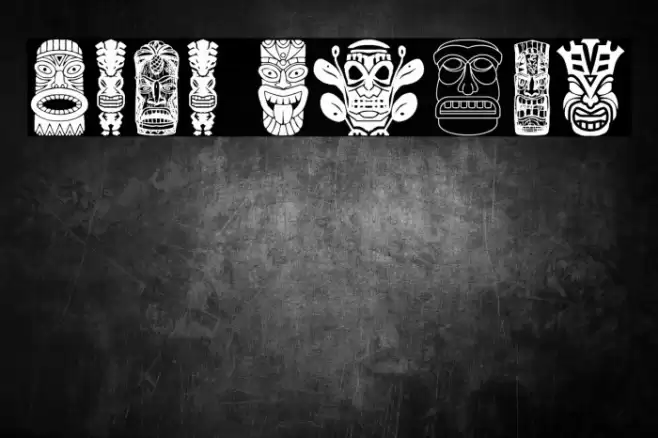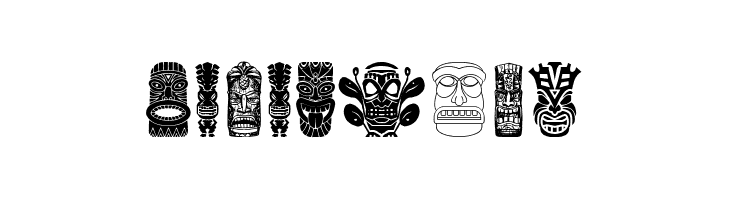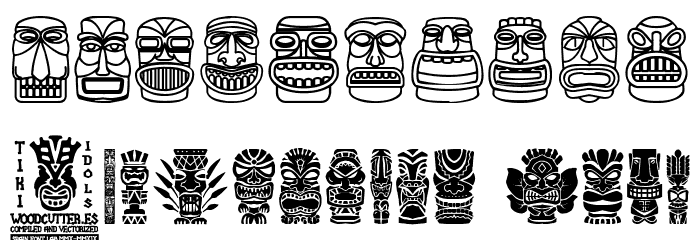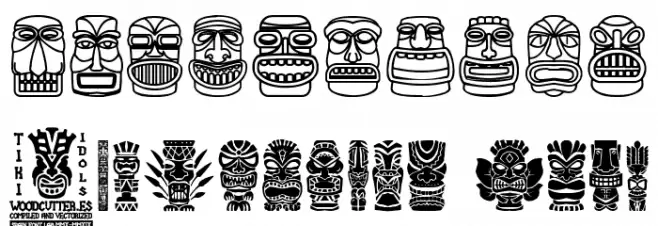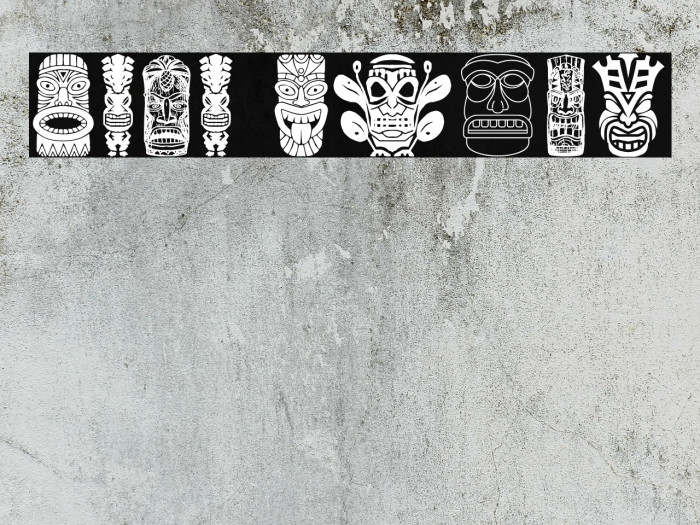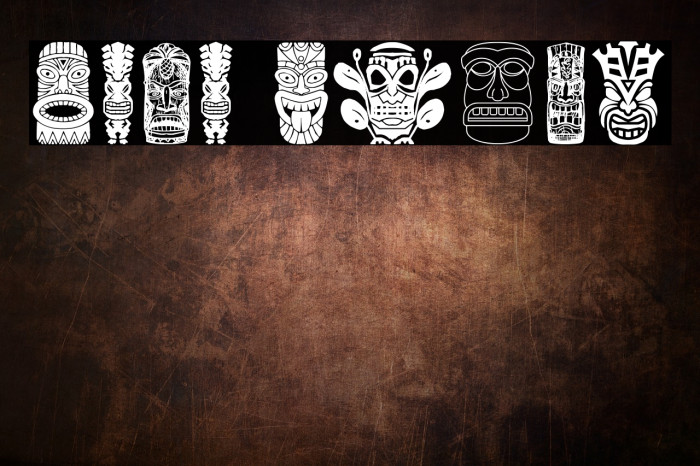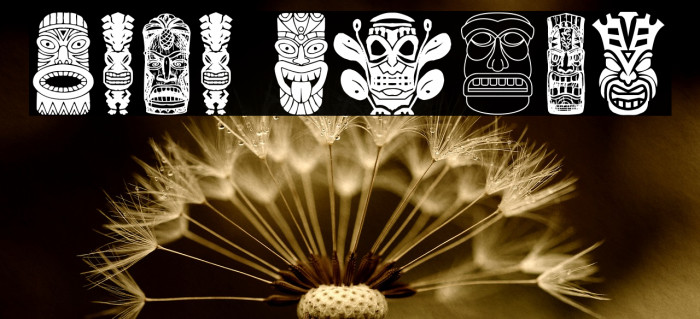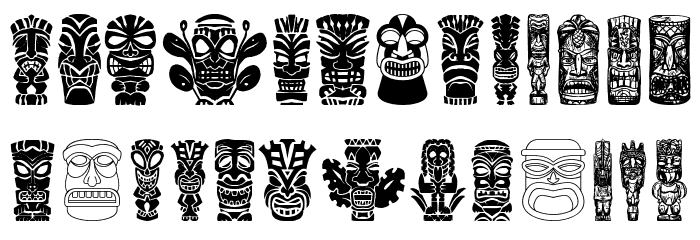
Tiki Idols Font
Tiki Idols Description
A highly decorative display font featuring a variety of stylized tiki idol illustrations as glyphs, each character represented by a unique, bold, and intricate tiki face or figure. The style is playful, tribal, and visually striking, with heavy black fills and detailed linework.
A decorative display font with tiki idol illustrations as characters from Dingbats fonts.
- Proposed Projects: Tiki bar branding, party invitations, posters, themed event graphics, merchandise, and signage.
- Overall Style: Decorative, Tribal, Playful
- Use Case: Logos, Posters, Headlines, Themed Graphics